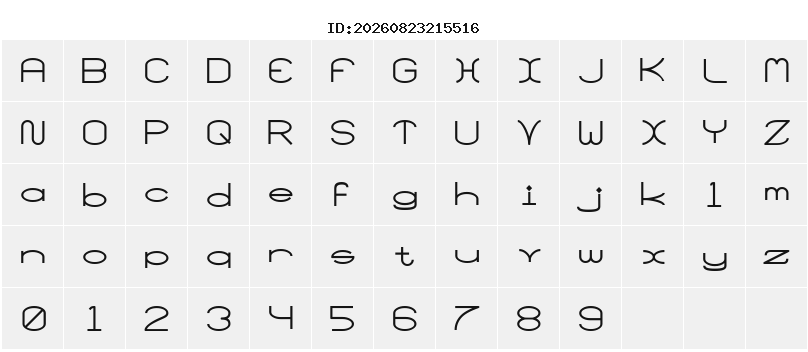
SantaMonicaMF Preview
• Font Name: SantaMonicaMF
• Full Font Name: SantaMonicaMF
About SantaMonicaMF.ttf
SantaMonicaMF.ttf is a modern, elegant sans-serif font designed for ultimate readability and visual harmony. Perfect for branding, headlines, web design, and print materials.